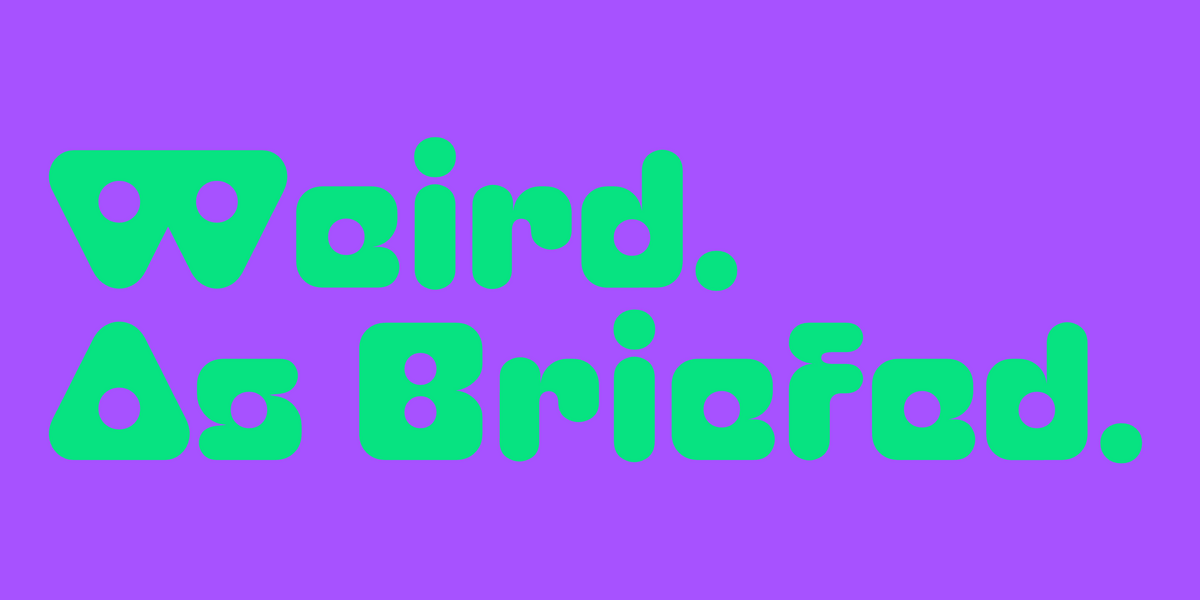
Funky Fonts for Branding with Personality
Funky fonts get a bad rap because most of them read amateur. The ones that work do something specific: they carry distinctive personality while still functioning as proper type. Real weights, real alternates, real licensing. These ten Mojomox funky fonts hit that mark. Use them for kids brands, beauty and lifestyle work, music and culture identities, podcast covers, and any project that wants energy.
1. Miox
Groovy bubble font with retro-inspired curves and modern details. A signature funky pick for branding that needs to feel alive without going chaotic.
2. Plox
Cool bubble block font with a playful toy box feel. Modular shapes, hand-drawn character, confident retro vibe. Designers use it for kids brands and gaming.
3. Skay
Handwritten bubble font with brush-ink character. Sits in a sweet spot between casual lettering and display type. Beauty, fashion, and Instagram-driven brands keep coming back to it.
4. Bool
Playful sans-serif with bold proportions and fun alternates. The most expressive member of the Bauhaus family. Good for warm brands that still want structure.
5. Swav
Wavy futuristic display font. The fluid letterforms read as forward-looking and confident. Strong for editorial, fashion, and music branding.
6. Cesty
Friendly rounded display font with a soft 70s feel. The proportions are warm, the alternates expressive. Used across food, hospitality, and lifestyle work.
7. Goji
Playful rounded sans-serif. Warm shapes, weights that pair cleanly, and readability at smaller sizes. The funky font that still works for body copy.
8. Soya
Extended display font with editorial fashion energy. The wide proportions give it confidence without volume. A good pick for trend-aware identity work.
9. Aezra
Sharp narrow serif with long terminals. The funky-editorial angle reads experimental but disciplined. Strong for fashion lookbooks and music covers.
10. Apex
Bold pointy sans-serif with sharp alts. The pointy energy reads loud and confident. Good for music, sports, and gen-Z brand work.
How to use funky fonts without going overboard
The rule of thumb: one funky font per design at maximum, paired with a clean sans-serif or serif for body text. Let the funky font carry the personality. The supporting type does the readable work. Designers pair these with Auria Sans, Vole, or Roma for body and microcopy.